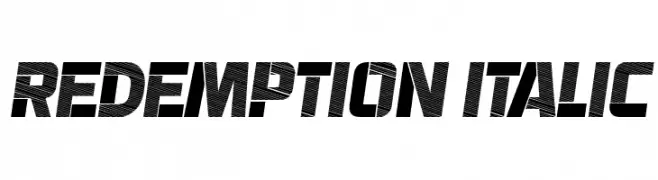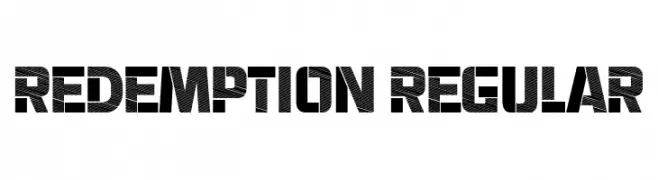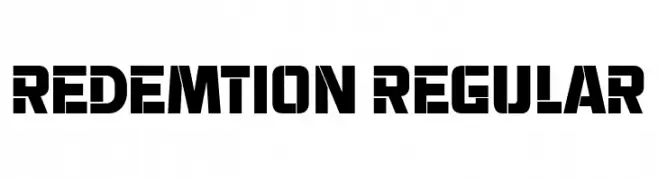
A bold, italic font with dynamic lines and a modern, edgy style.
A bold, geometric font with intersecting diagonal lines for a modern, edgy look.
A bold, geometric font with angular letterforms and high contrast.
A bold, geometric font with sharp angles and a modern design.